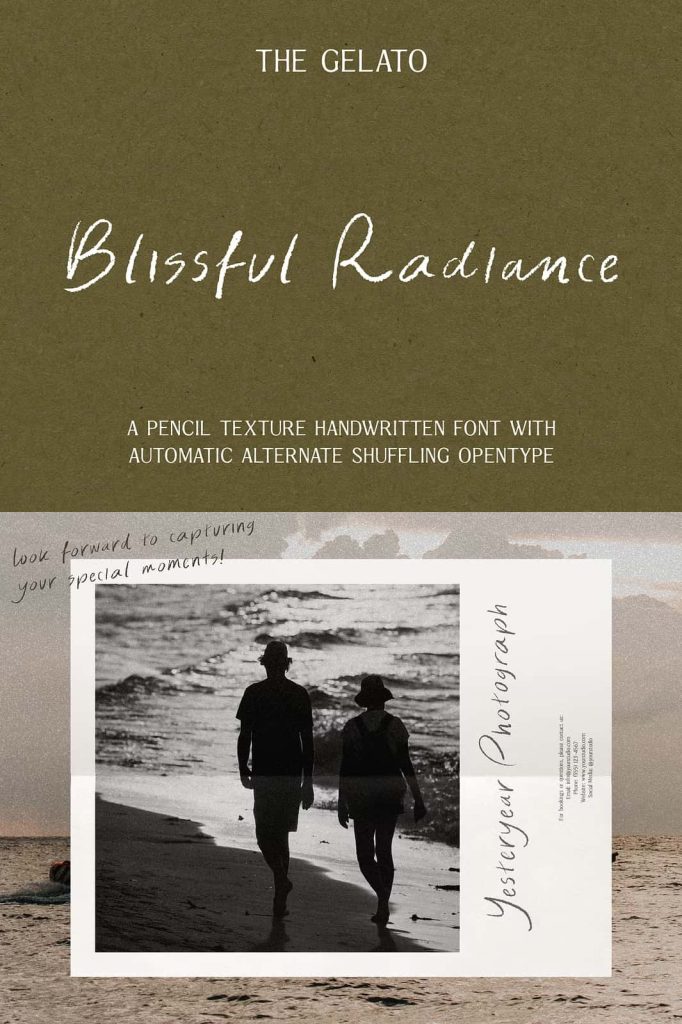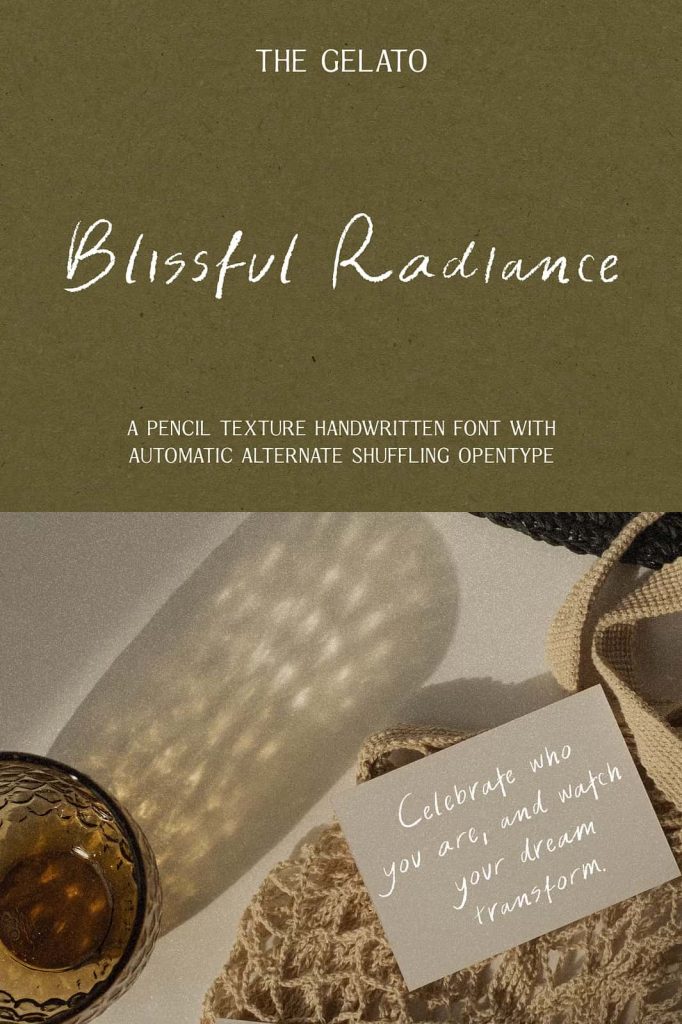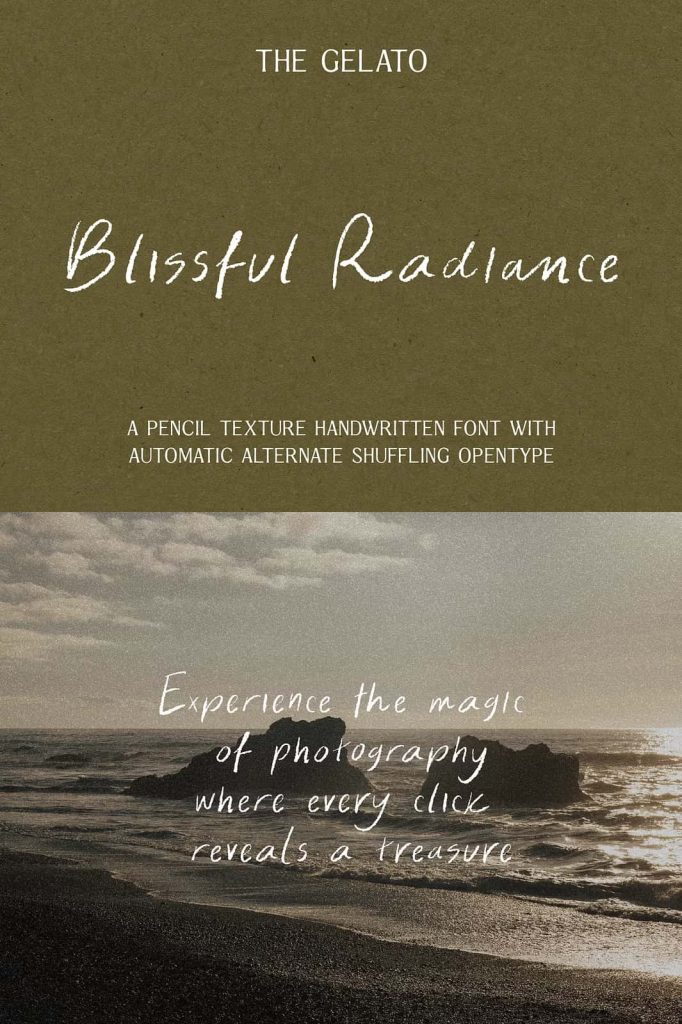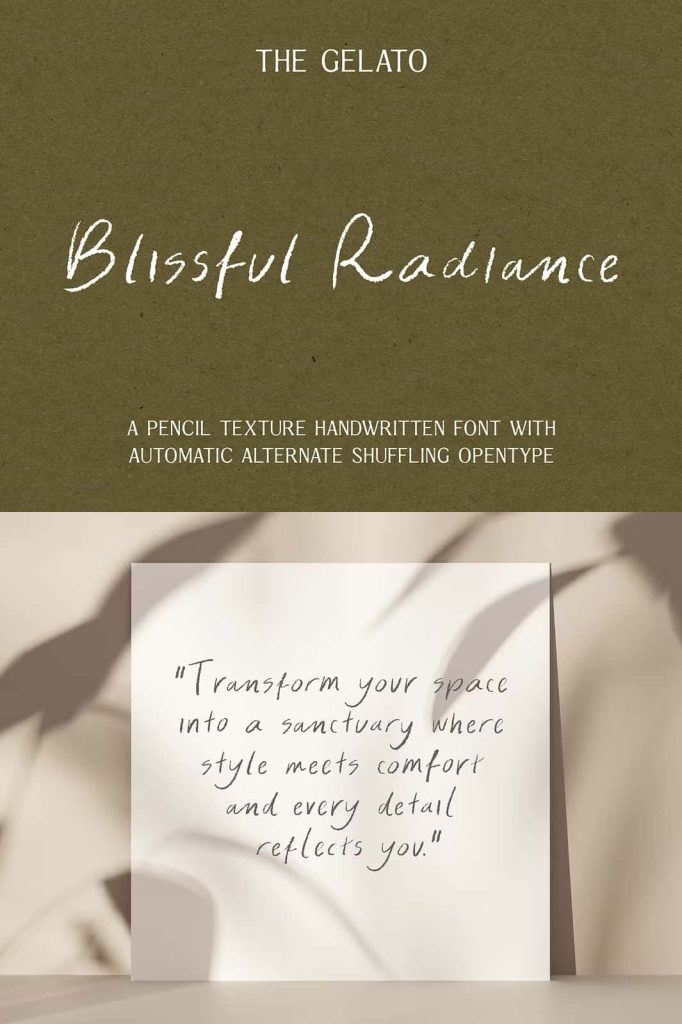
Introducing Blissful Radiance—a charming pencil texture handwritten font that captures the essence of warm, personal expression. Perfect for everything from heartfelt notes to stylish branding, this font radiates creativity and authenticity.